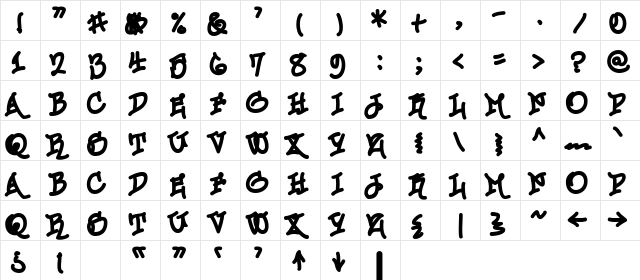
Urban Scrawl Chill Regular
Design Context for Urban Scrawl Chill Typeface
Urban Scrawl Chill is a composed and adaptable typeface that performs quietly and consistently across a wide range of design contexts.
Pro Tip: Use Urban Scrawl Chill in both headline and body roles to test its range before committing to a single application.